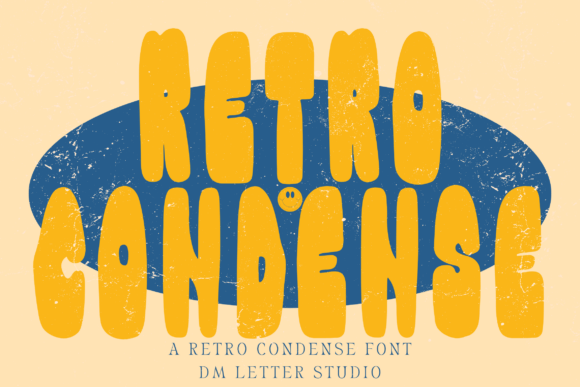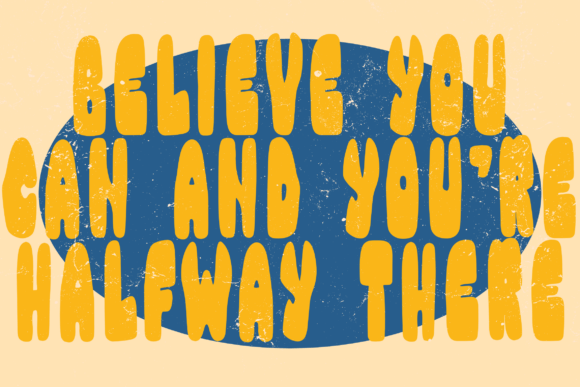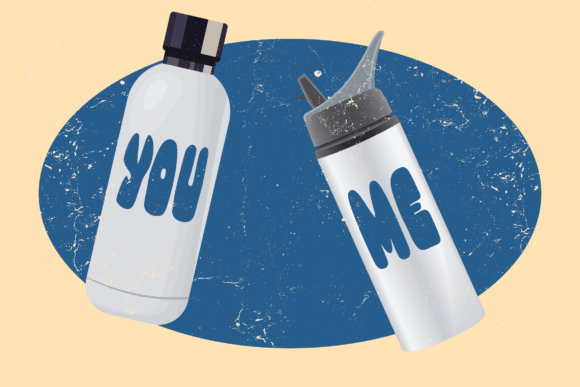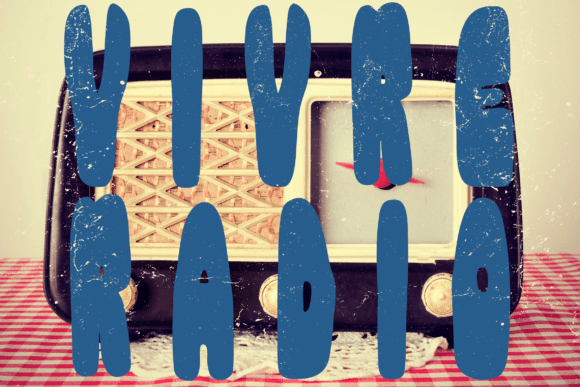
Retro Condense Font
About the Retro Condense Font
Get ready to be inspired by Retro Condense Font, a fresh and dynamic typeface for modern creators. Immerse yourself in the captivating blend of yesteryears and contemporary aesthetics with the Retro Condense Font. Its vivid inspiration from age-old posters, nostalgic advertisements, and classic signage brings a certain charming quaintness fused with modern appeal. With letters that stand tall and slender, this font is bursting with a robust personality that’s simply hard to forget.
Retro Condense elevates every piece of design from branding elements, magazine layouts, social media visuals to merchandise with an irresistibly nostalgic charm. This tactile typeface slides in smoothly as an ideal choice for headlines, emblems, music album covers or any other vintage-influenced design. Bring centerstage the unique condensed form of Retro Condense font, resplendent with a timeless allure that sets you apart from the ordinary.
Retro Condense Font Usage Examples
Retro Condense Font Example